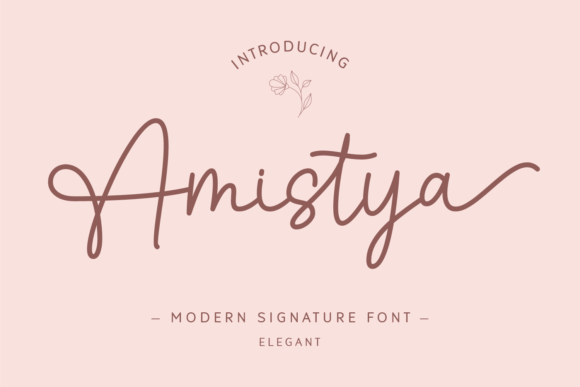
Introducing Amistya Font: The Epitome of Elegance and Sophistication
In the realm of typography, few fonts manage to convey the essence of sophistication and individuality as effectively as Amistya Font. This modern signature font has been meticulously crafted to embody the perfect blend of elegance and uniqueness, making it an ideal choice for a wide array of creative projects. Whether you’re looking to elevate your brand’s identity, create bespoke invitations, or simply add a touch of personal flair to your designs, Amistya Font is the perfect tool to bring your vision to life.
The Unique Characteristics of Amistya Font
Amistya Font is distinguished by its fluid strokes and distinctive character shapes, which together create a truly handwritten feel. This font’s design is inspired by the art of personal signatures, where every curve and line is a reflection of the individual’s personality. The result is a font that exudes warmth, authenticity, and a sense of connection, making it far more than just a typographical choice—it becomes a statement.
One of the standout features of Amistya Font is its ability to convey emotion and character. Unlike more traditional fonts that can sometimes feel rigid or impersonal, Amistya’s fluidity brings a dynamic quality to any text it’s used for. This makes it particularly well-suited for applications where personality and charm are key, such as in branding, where establishing a strong emotional connection with your audience is crucial.
Applications of Amistya Font
The versatility of Amistya Font is one of its most compelling attributes. Its elegant and sophisticated appearance makes it suitable for a wide range of applications, from high-end branding and luxury product packaging to wedding invitations and personal stationery. Essentially, anywhere you want to make a lasting impression or convey a sense of individuality, Amistya Font can play a pivotal role.
- Branding: Use Amistya Font to create a unique and memorable brand identity that stands out from the competition. Its distinctive style can help convey your brand’s values and personality.
- Invitations: Whether it’s a wedding, a birthday party, or any other special occasion, Amistya Font can add a touch of elegance and sophistication to your invitations.
- Creative Projects: For artists, designers, and writers, Amistya Font offers a creative outlet to express individuality. It can be used in portfolios, blogs, and other personal projects to add a personal touch.
Why Choose Amistya Font?
Choosing Amistya Font for your creative projects comes with numerous benefits. Here are a few reasons why it stands out from the crowd:
- Unique and Memorable: Its handwritten style ensures that your text stands out and remains memorable to your audience.
- Versatile: Amistya Font can be used across various platforms and in different sizes without losing its charm or legibility.
- Elegant and Sophisticated: It brings a level of sophistication that’s hard to achieve with more conventional fonts.
- Authentic: The font’s design captures the essence of a personal signature, providing an authentic feel to your designs.
How to Use Amistya Font Effectively
To get the most out of Amistya Font, it’s essential to understand its strengths and how to use it effectively. Here are a few tips:
- Pair it with Complementary Fonts: When using Amistya Font in a multi-font project, choose fonts that complement its elegance. Simple sans-serifs or classic serifs can work well.
- Consider Size and Weight: Amistya Font’s impact can vary based on its size and weight. Experiment with different sizes to see how it can be used to emphasize certain parts of your text.
- Color Matters: The color you choose for Amistya Font can significantly affect its appearance. Stick to elegant color palettes that reflect the sophistication of the font.
Amistya Font is more than just a typographical choice; it’s a statement of elegance, sophistication, and individuality. Its unique, handwritten style and fluid strokes make it the perfect addition to any creative project that demands a touch of authenticity and charm. Whether you’re a designer looking to elevate your branding, an event planner crafting bespoke invitations, or simply someone who appreciates the beauty of typography, Amistya Font offers a world of possibilities. By incorporating Amistya Font into your designs, you’re not just choosing a font—you’re embracing a style that speaks to the heart of creativity and personal expression.
- What makes Amistya Font unique?
- Amistya Font’s uniqueness lies in its elegant, handwritten style that captures the essence of a personal signature. Its fluid strokes and distinctive character shapes set it apart.
- Is Amistya Font easy to read?
- Despite its handwritten nature, Amistya Font is designed to be legible. Its clear character distinctions make it readable, even at smaller sizes.